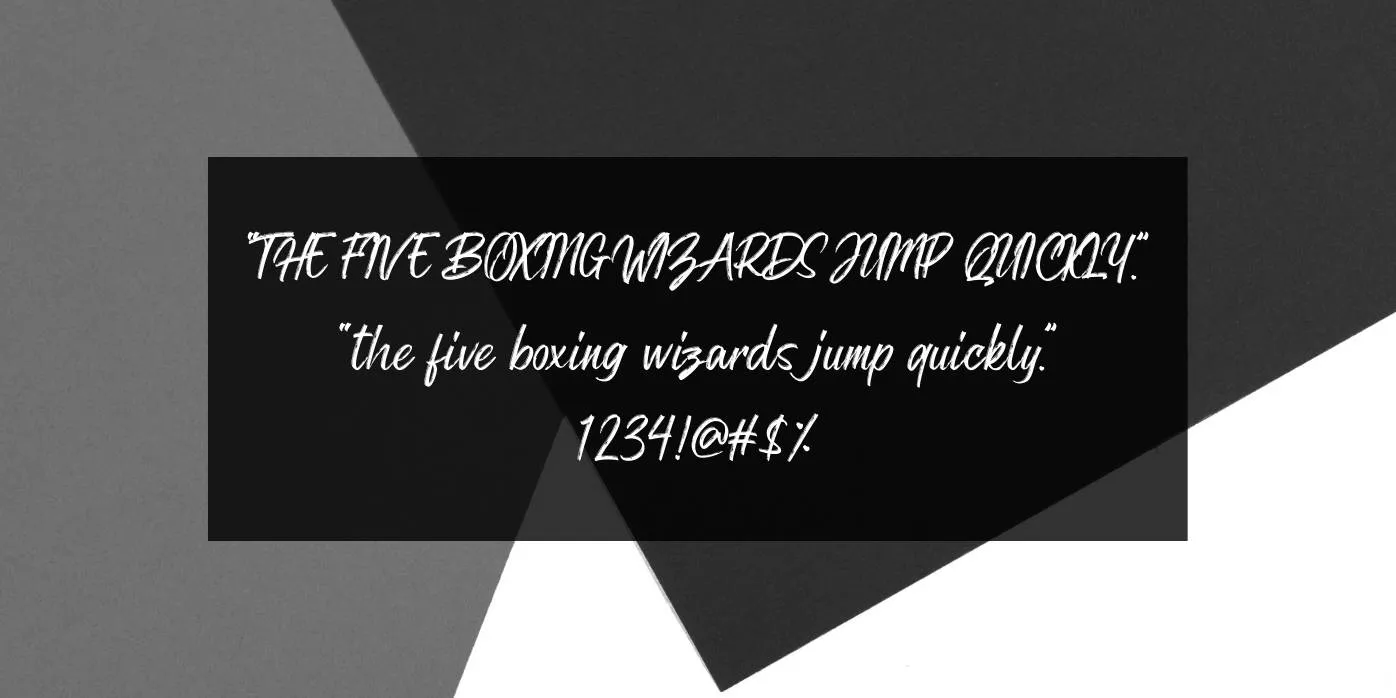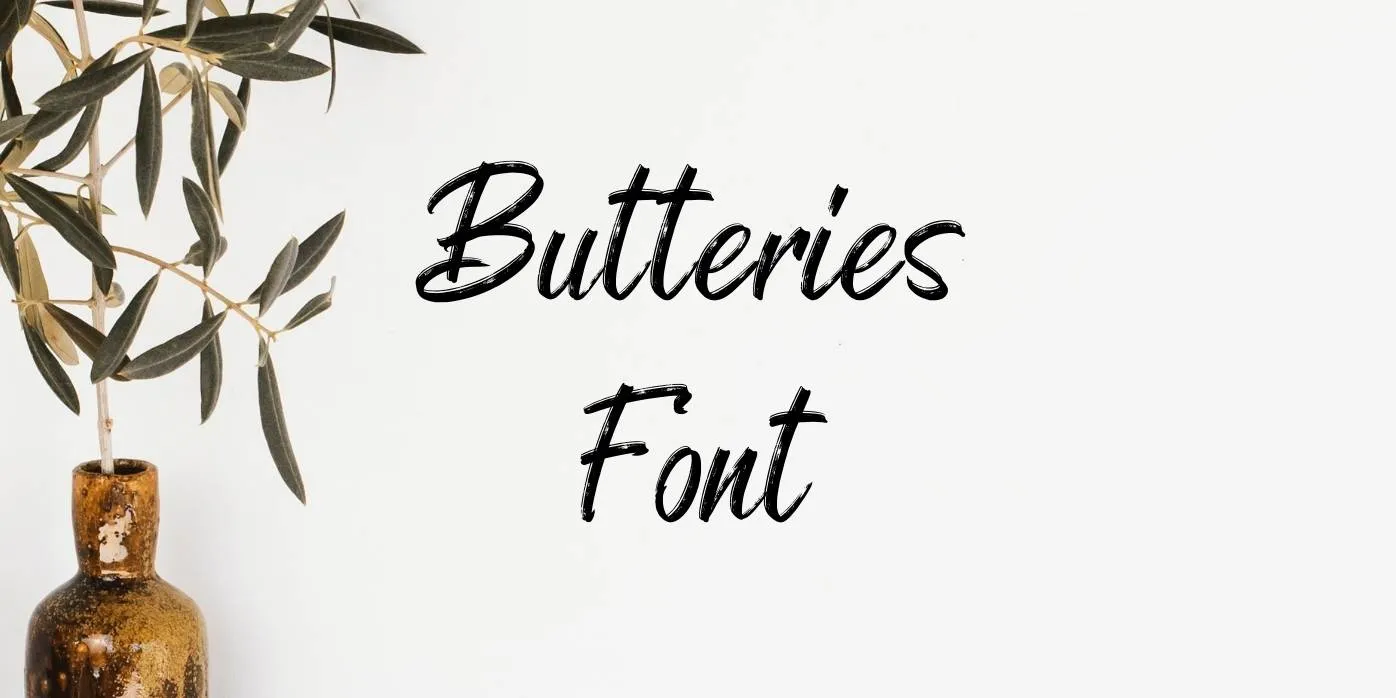
Butteries Font
Today, we introduce Butteries Font which belongs to the. This font family Script typeface. This font family is available in five weights – Thin, Light, Regular, Medium, and Bold. All of the fonts include a complete character set.
Butteries Typeface is best used for headlines, logos, and prints. This typeface is very famous because of its unique and stylish look. It has a license that allows you to use it for personal and commercial projects. For more classic features, you will have to use its alternative babette font which has the same features.